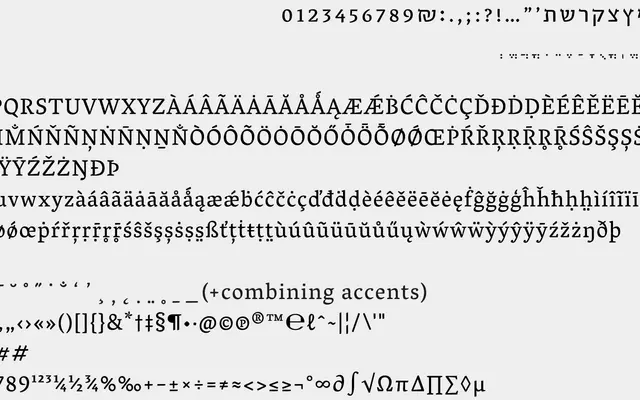
Vesper Hebrew
Mota Italic · Oded Ezer, Rob Keller · 2010
A five-weight Hebrew and Latin type family designed in collaboration between Rob Keller and Oded Ezer, with sculpted stroke contrast and subtly rounded corners across both scripts.
Designed in 2010, the family pairs Rob Keller's Latin originals with Oded Ezer's Hebrew companion, which rebalances the script's typically dominant horizontals in favour of stronger verticals. Slightly rounded corners give the text a softer, more supple texture than sharp-cornered counterparts, an effect that grows more pronounced at larger sizes. Five weights from Light to Heavy allow for nuanced typesetting rarely available in Hebrew type families, and OpenType features cover nikud positioning, wide alternates for justification, and dual punctuation sets that switch automatically to match the active script.
The typeface features sculpted thick-to-thin stroke contrast with soft angles and slightly rounded corners, placing it within a transitional serif tradition adapted for both Hebrew and Latin scripts.